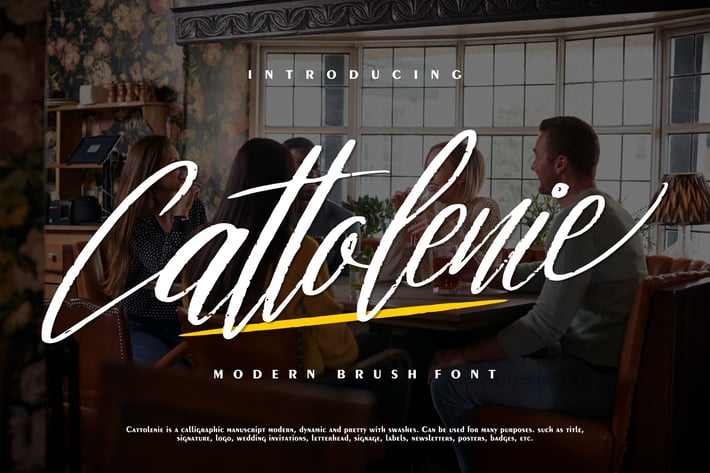
Cattaloenie | Modern Brush Font
Cattaloenie | Modern Brush Font with a calligraphy style, So beautiful on invitation like greeting cards, branding materials, business cards, quotes, posters, and more!